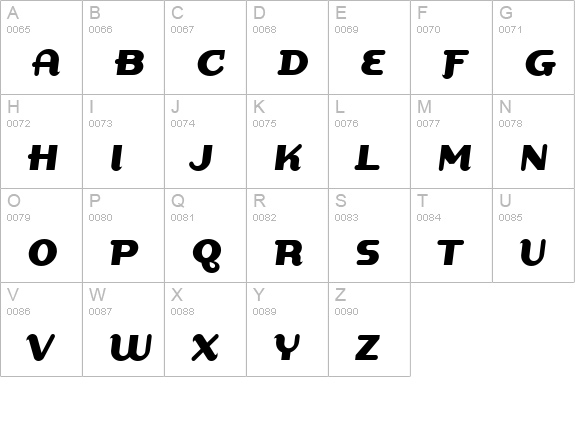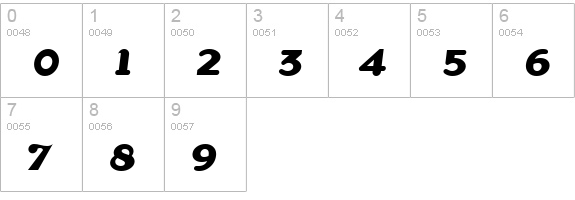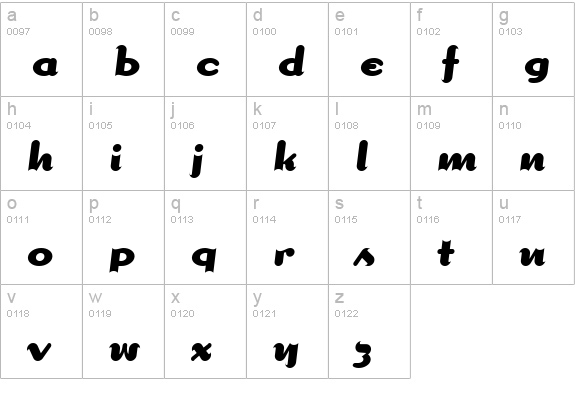
DogmaScriptBold Bold Font Details
DogmaScriptBold Bold is a strong, high-contrast variant in the DogmaScriptBold typeface family \xE2\x80\x94 well suited to headlines, attention-grabbing titles, and strong calls-to-action.
DogmaScriptBold Bold is a stunning and eye-catching font that exudes confidence and elegance. Its bold and strong appearance makes it perfect for headlines, titles, and other design elements that need to make a statement. The crisp lines and intricate details of this font add a touch of sophistication to any project. What makes DogmaScriptBold Bold even more appealing is that it is available for free to download at FontsMarket.com. This means that you can enhance your designs with this beautiful font without any cost involved. Whether you're working on a professional project or a personal creation, DogmaScriptBold Bold is sure to make a lasting impression. Download it now and elevate your designs to the next level!